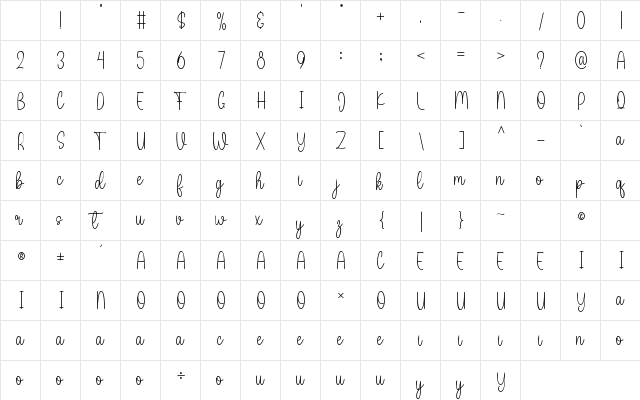
Complete Welcome September Regular glyph index. Displaying only characters natively supported by Welcome September Regular font.
Welcome September is a composed and adaptable typeface that performs quietly and consistently across a wide range of design contexts.